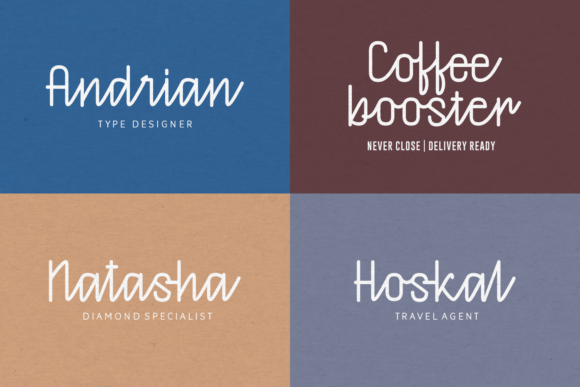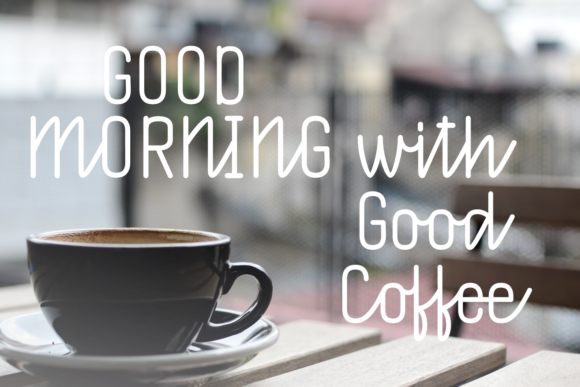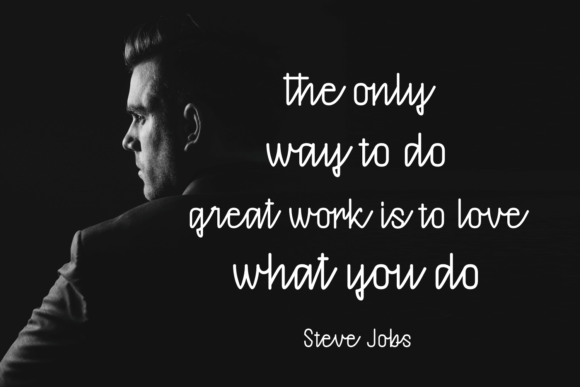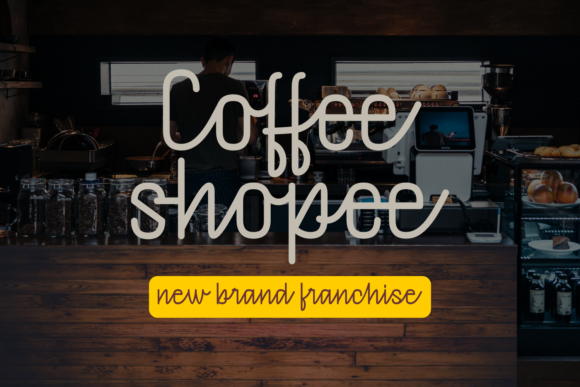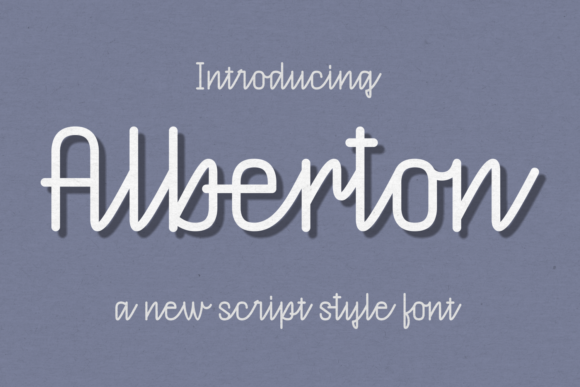
The Designer’s Delight: Getting to Know Alberton Font
I’ll never forget the time I was working on a branding project for a luxury client, and I just couldn’t find the perfect font to match their sophisticated vibe. I scrolled through pages of font libraries, but nothing seemed quite right. That’s when I stumbled upon Alberton Font, and it was love at first sight! 💕 In this article, I’ll share my journey with Alberton, its features, and how you can make the most of this elegant script-style font in your designs.
An Honest Review of Alberton Font
What I Love About Alberton Font ✨
- ✅ Elegant and sophisticated: Alberton Font exudes luxury and refinement, making it perfect for high-end branding and designs.
- ✅ Versatile: This font is suitable for a wide range of applications, from logos and headlines to quotes and personal branding.
- ✅ Unique: Alberton Font has a distinct personality that sets it apart from other script fonts, ensuring your designs stand out.
- ✅ Highly legible: Despite its elegant nature, Alberton Font remains clear and easy to read, even at smaller sizes.
While Alberton Font is an excellent choice for many design projects, there are a few things to keep in mind:
- ⚠️ Limited use for body text: Due to its script nature, Alberton Font may not be the best choice for lengthy body text. It’s better suited for headlines, titles, and short paragraphs.
- ⚠️ May require adjustments for certain languages: Alberton Font may not support all languages or special characters, so be sure to check its compatibility before use.
The Story Behind Alberton Font
Alberton Font was designed by a talented type designer who drew inspiration from classic calligraphy and modern script fonts. The goal was to create a unique and elegant font that would add a touch of sophistication to any design project. With its refined lines and beautiful letterforms, Alberton Font has become a popular choice among designers and crafters.
Q: What type of projects is Alberton Font best suited for?
A: Alberton Font is perfect for branding, logos, quotes, personal branding, websites, books, cards, and any design project that requires an elegant and sophisticated touch.
Q: Is Alberton Font available in different weights or styles?
A: Alberton Font may come in different weights or styles, depending on the font provider. Be sure to check the font’s details to see what options are available.